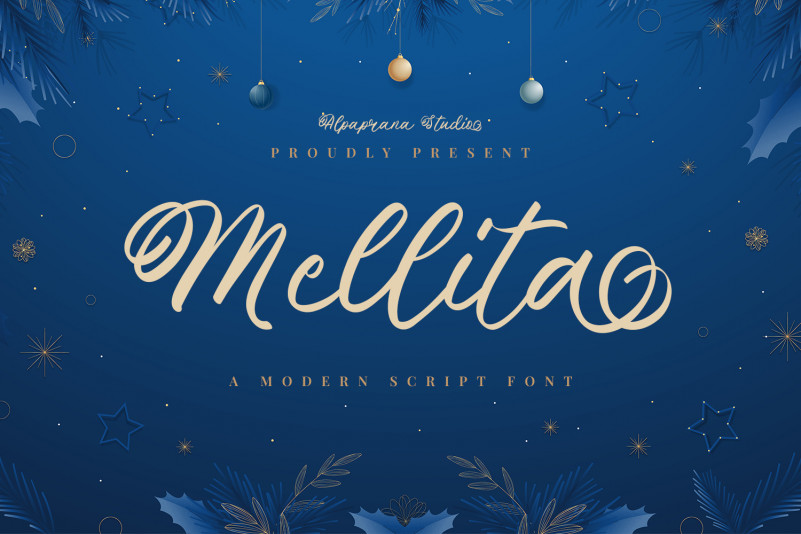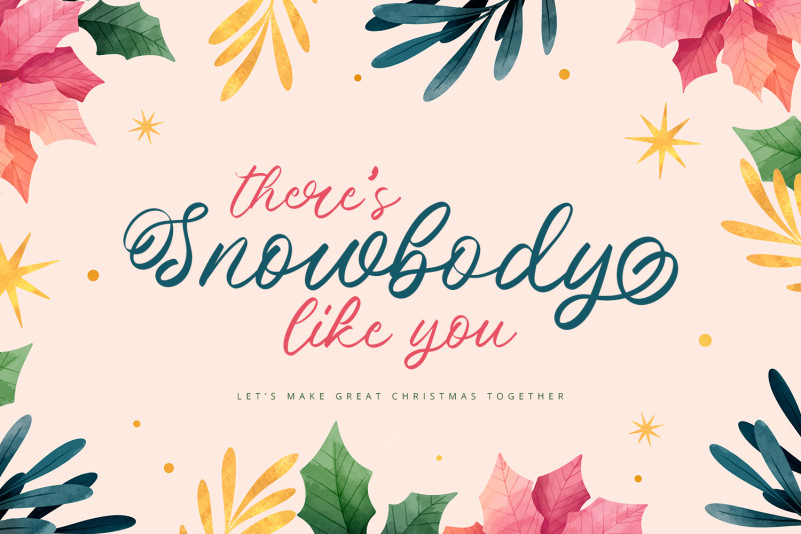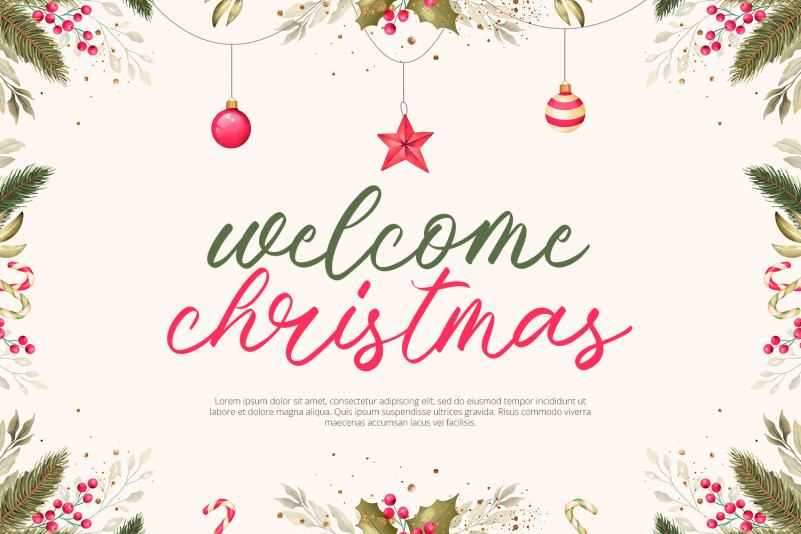
Mellita Font
Mellita Script Font is a modern script font with elegant and unique style. It will be perfectly used for Branding, Logo Design, Lettering, Logotype, Clothing, Poster, magazine, packaging, posters, shopping bags, t-shirts, book covers, photography, special events and other design project.